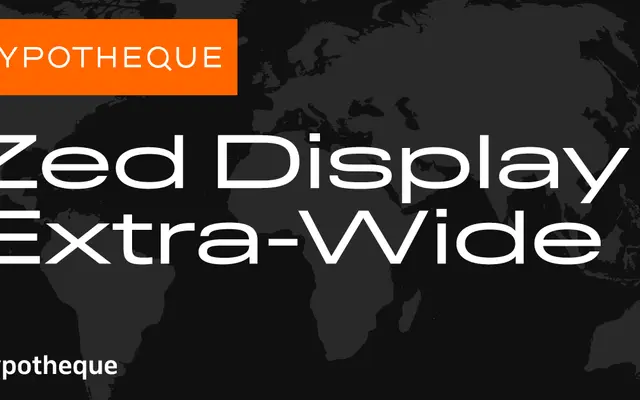
Zed Display Extra-Wide
Zed Display Extra-Wide specimen from Typotheque
The Extra-Wide width variant of Typotheque's Zed Display, a geometric sans system spanning nine widths, nine weights and three slope variants per subfamily.
Zed Display Extra-Wide sits at the broadest end of a geometric sans superfamily designed with a systematic logic that produces 27 styles per width variant, covering Hairline through Black with upright, slanted and backslanted cuts. The full Zed system extends across Display, Round and Text subfamilies plus an icon set and a variable font, making it one of the more architecturally complete type systems in contemporary retail type. Individual styles are named after world cities, from Amsterdam to Zaragoza.
Zed is a geometric display sans with an extensive width axis, ranging from Extra-Compressed to Extra-Wide. The Display subfamily is optimised for large-scale setting with sharp, upright and slanted variants.